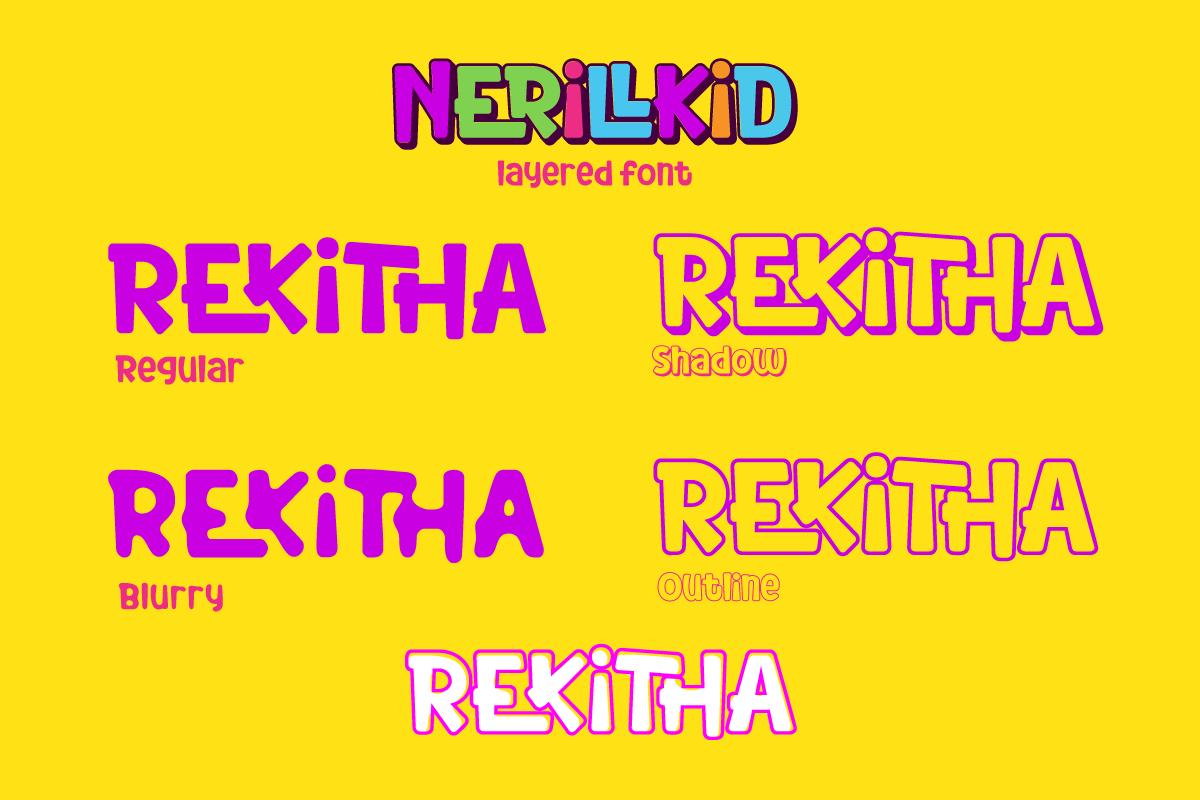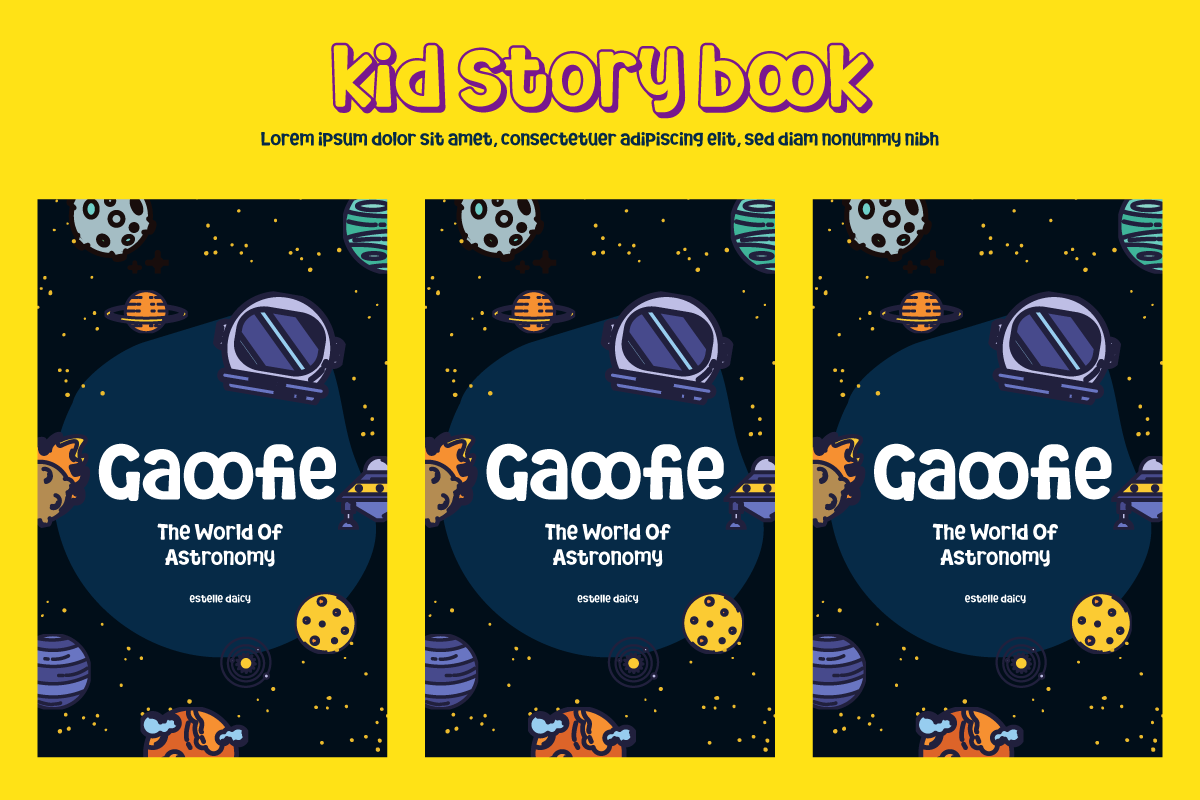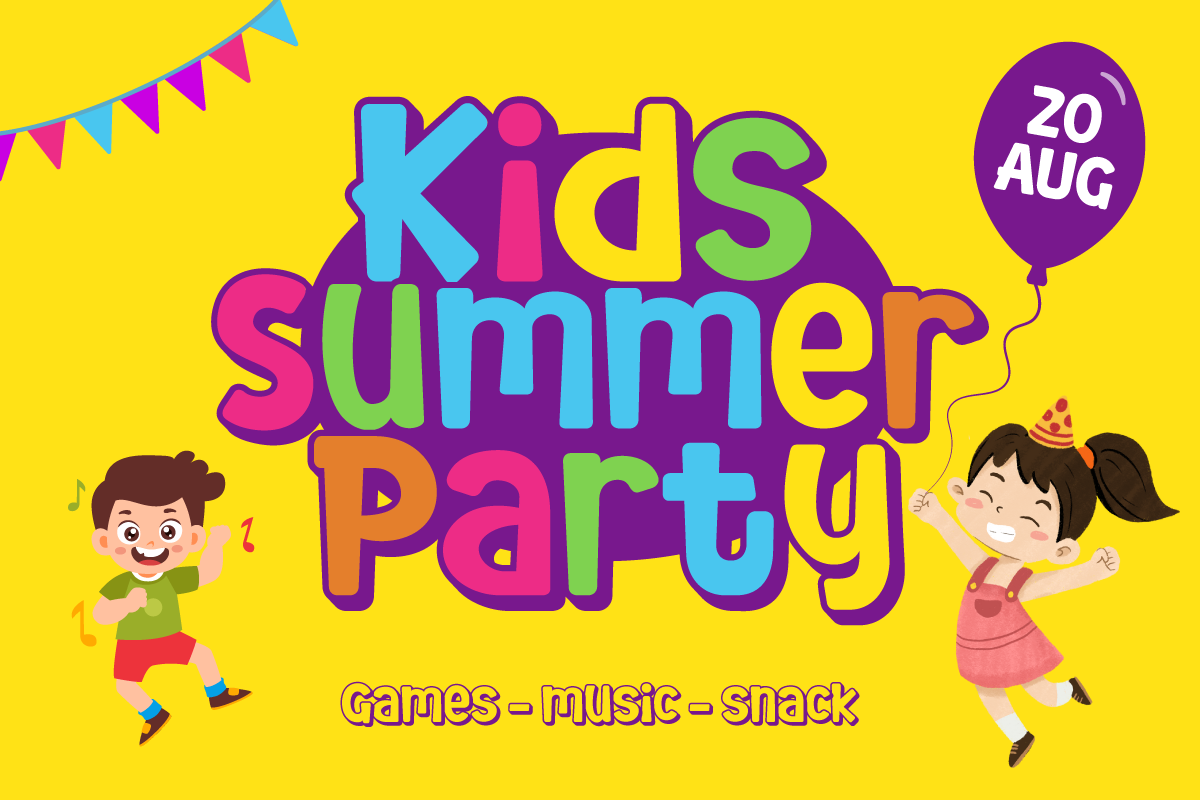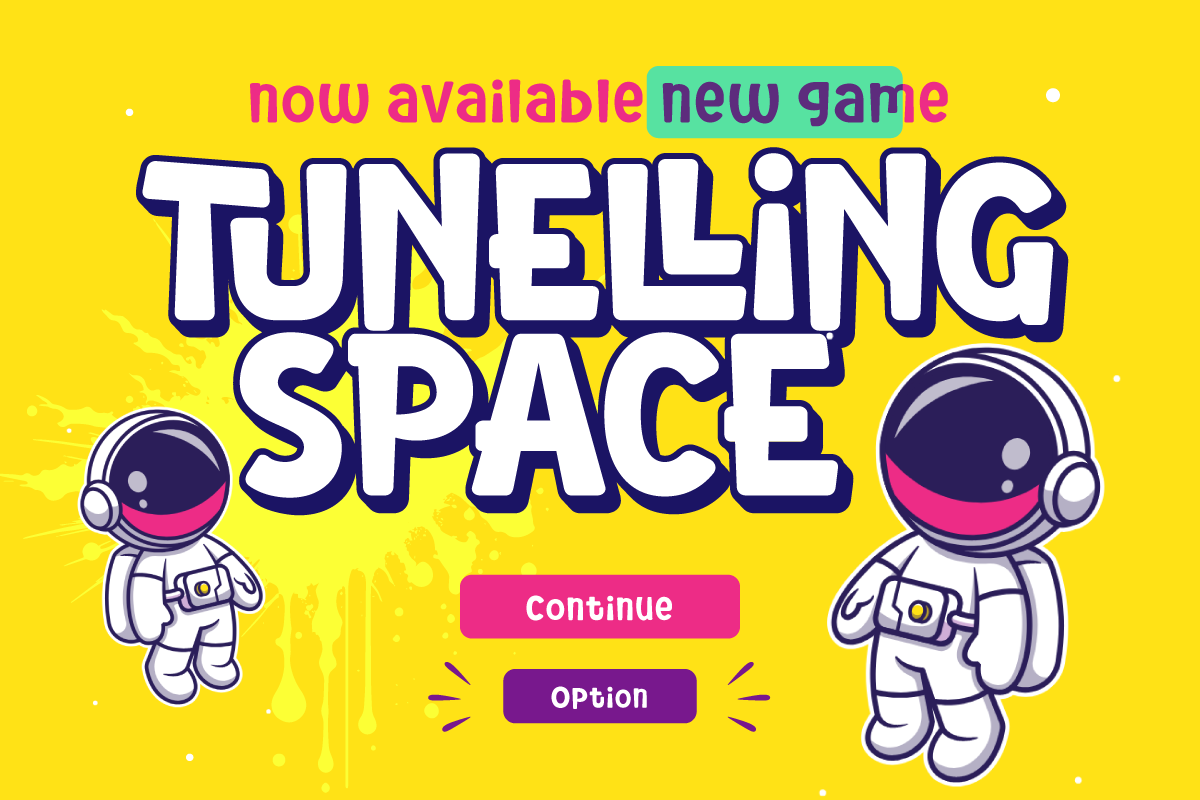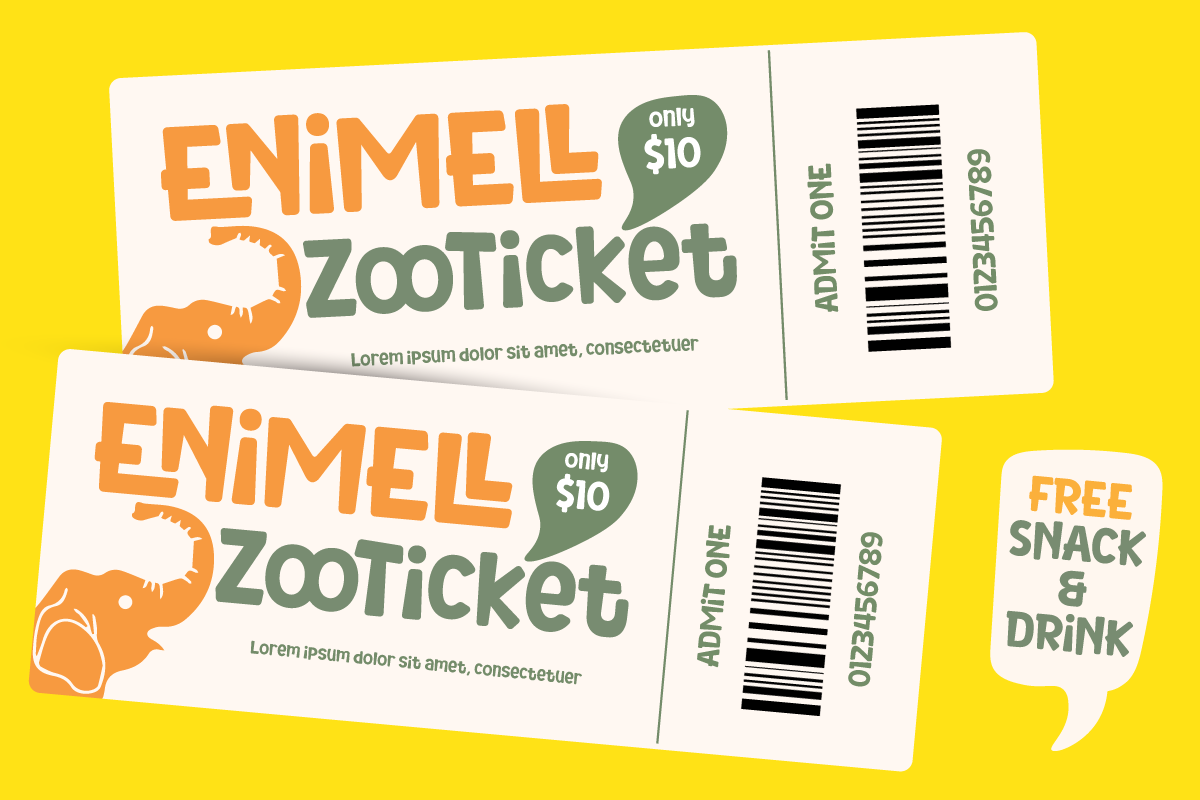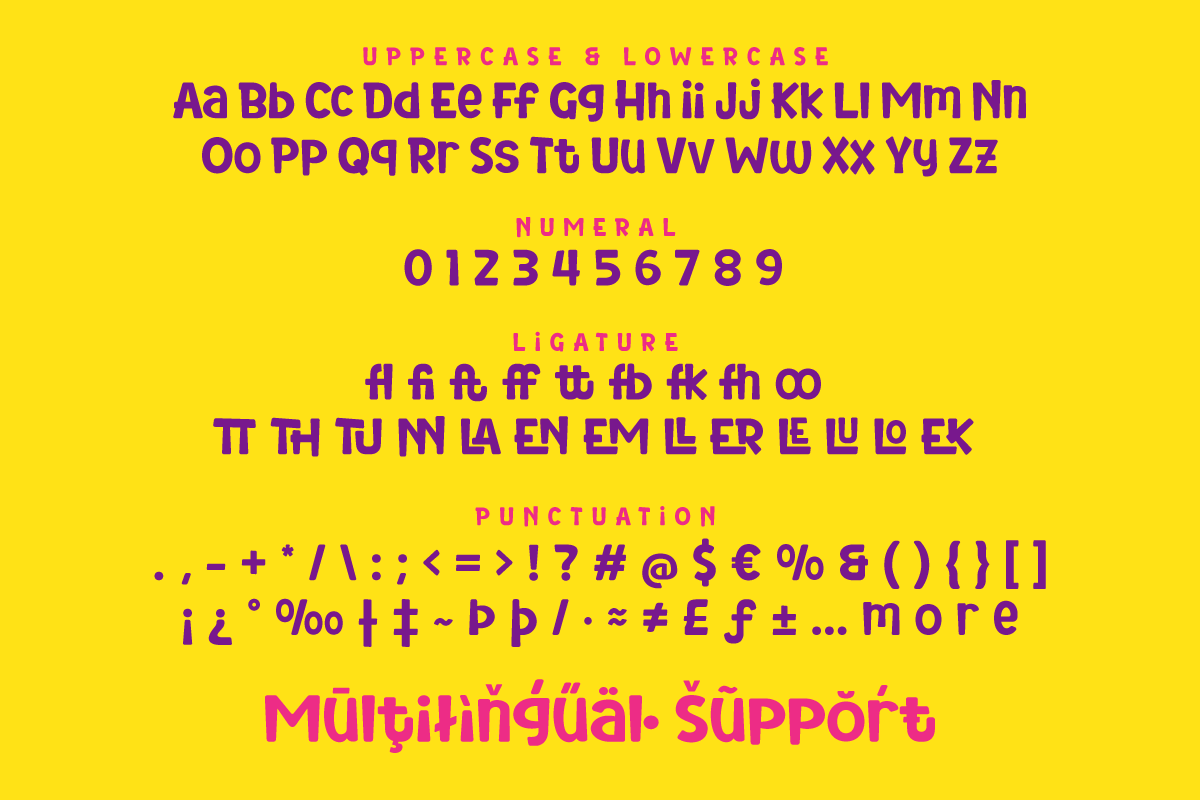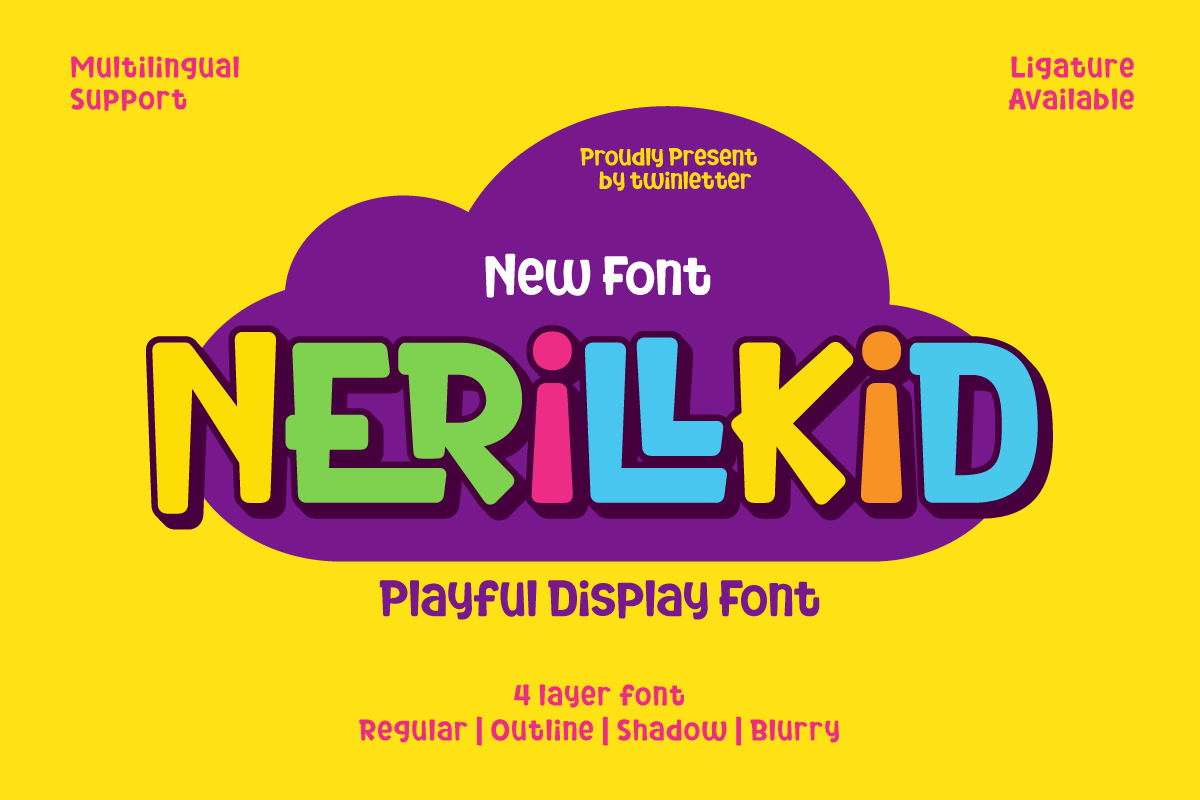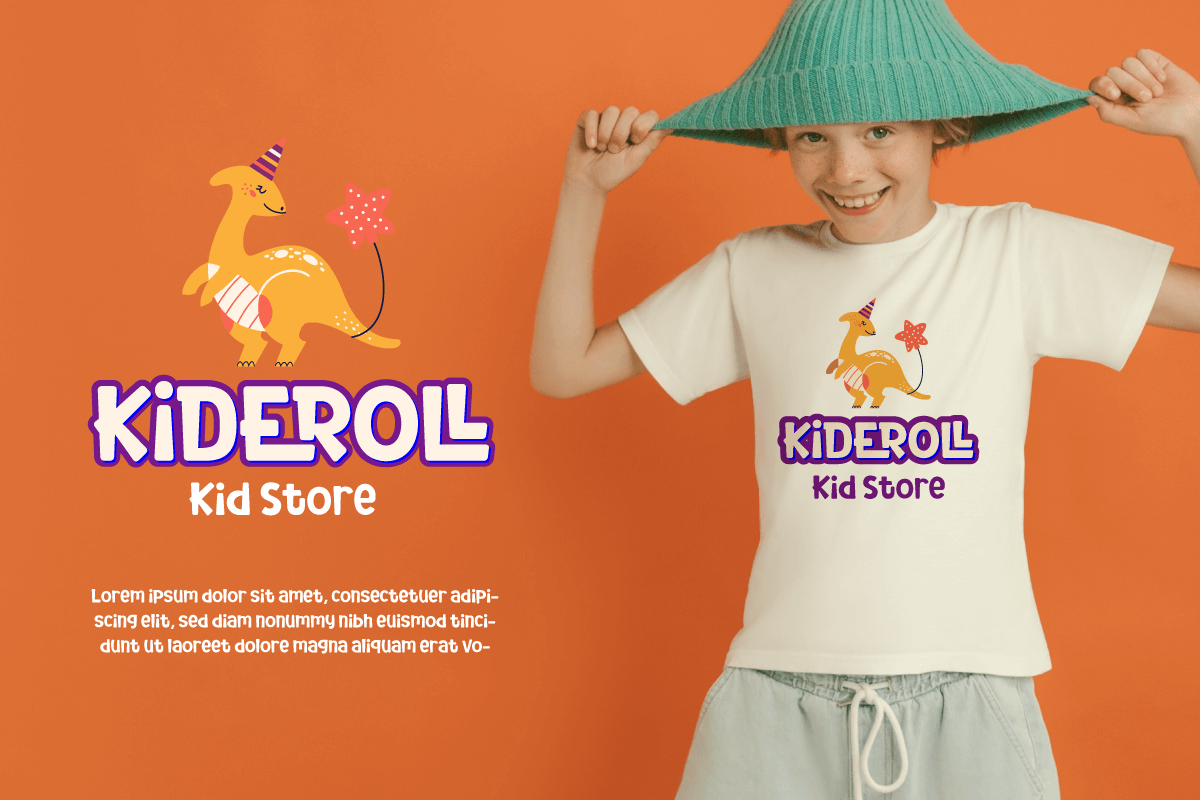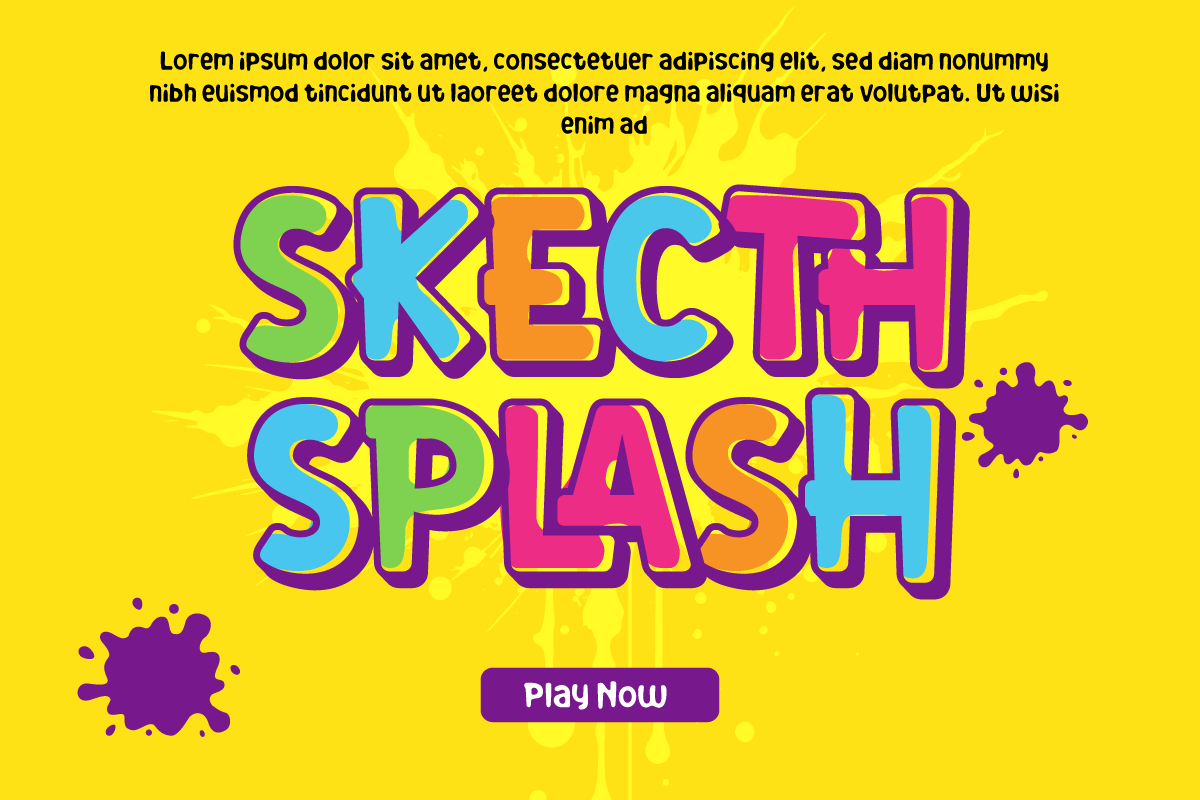
Nerillkid - Playful Display Font
Nerillkid is more than just a font, it is a journey into a world full of color and typographic fun. Like balloons floating in the sky, this font brings each character a spirit of play and creativity.
Nerillkid's Regular Style is the basis of this adventure. With softness and flexibility, each letter forms words like toys that compose an unexpected story.
However, the story doesn't end there. By digging deeper, you'll find Outline, giving your designs an extra dimension. Like inserting a balloon stem that makes it float even more in the typographic sky.
Then, Nerillkid takes you into the shadows of the toy in Shadow style. With each letter painted with shading, a theatricality emerges that brings the words in your design work to life.
Nerillkid is a journey through a world of imagination and fun. With a wide selection of styles, this font is ready to be part of a colorful and joyful design.